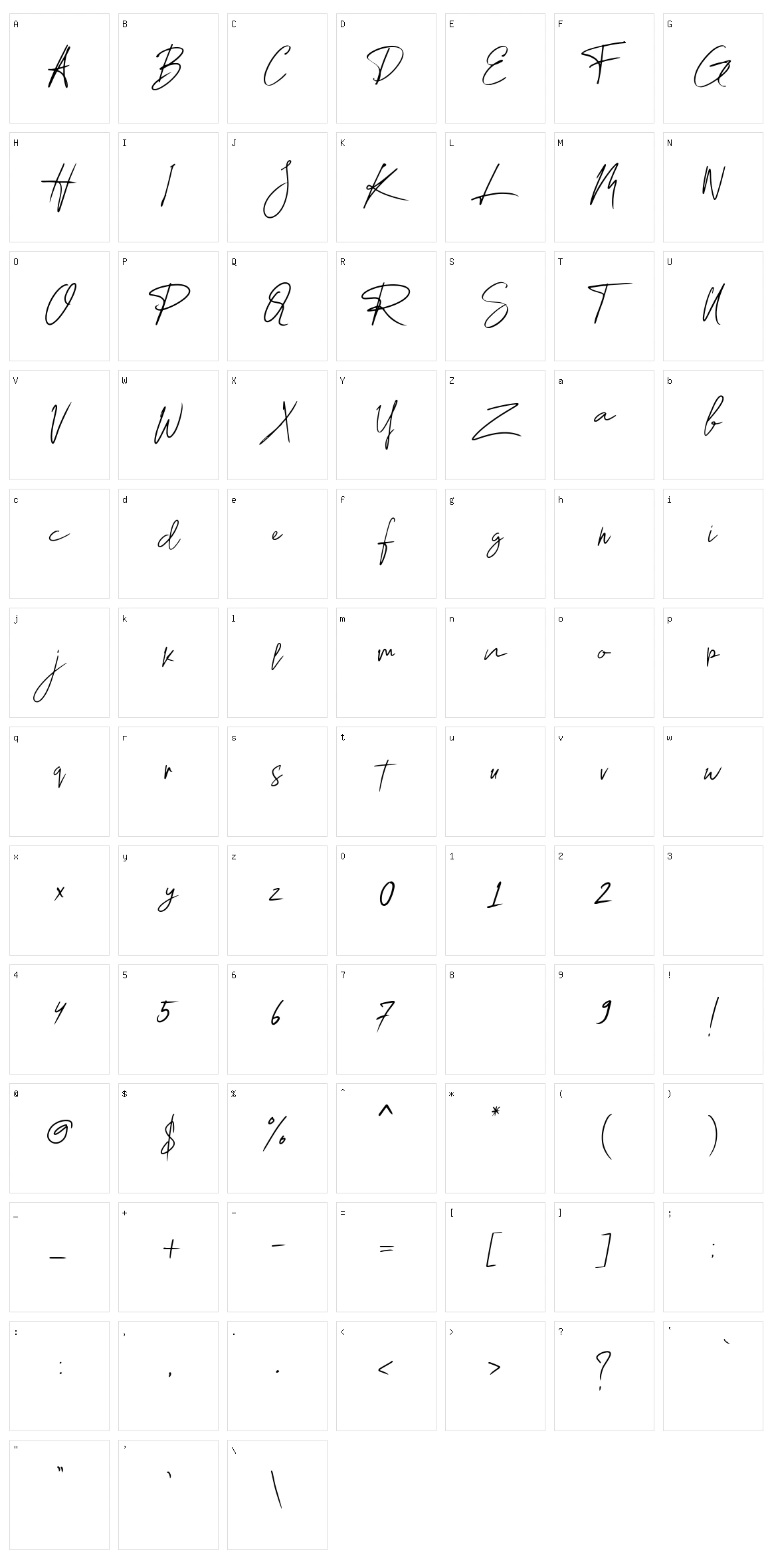
Chelsea Queen is a very unique font, because there are 85 sets of ligatures, that will make writing natural and elegant.
This is very suitable for use Logo, Wedding, Fashion, Poster, Menu, Invitation and there is still much that can be done with this font.